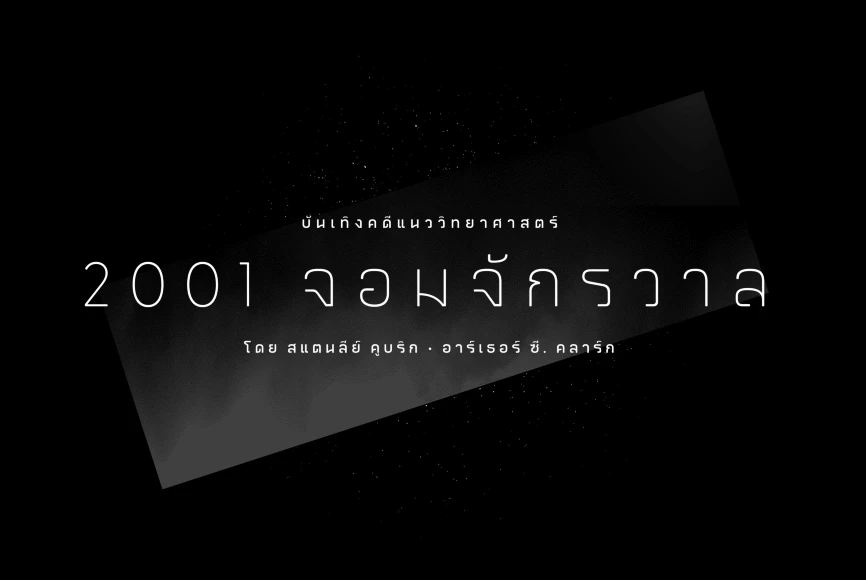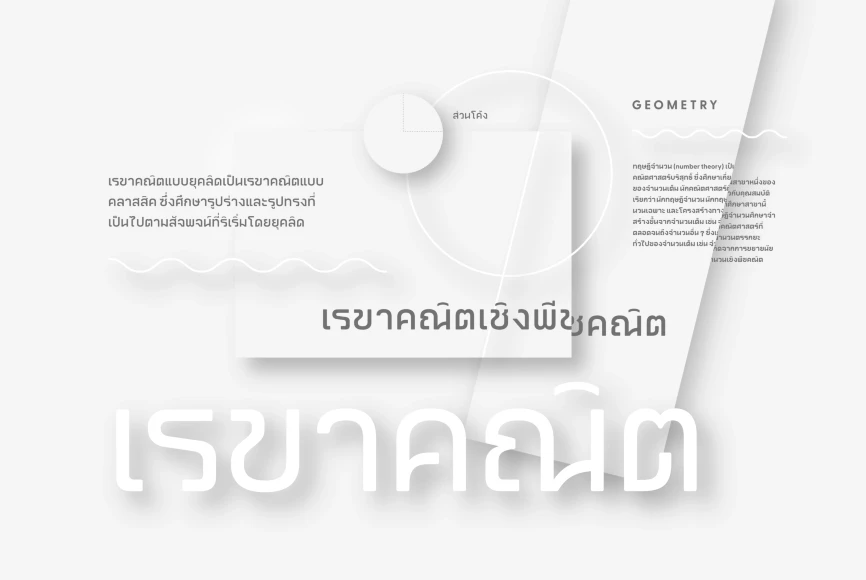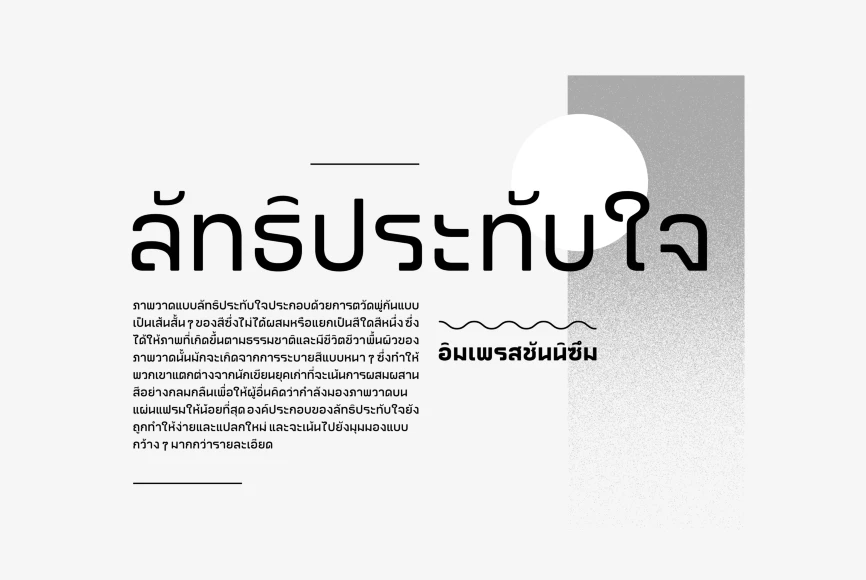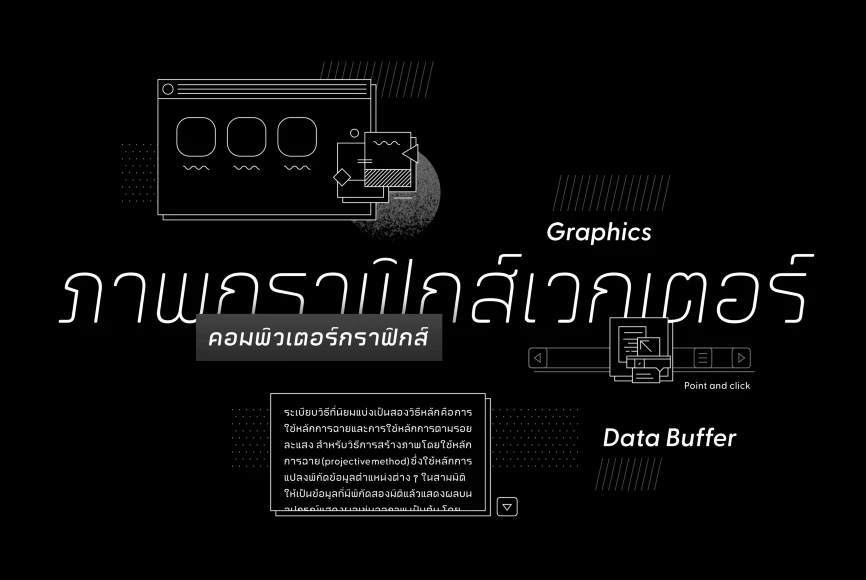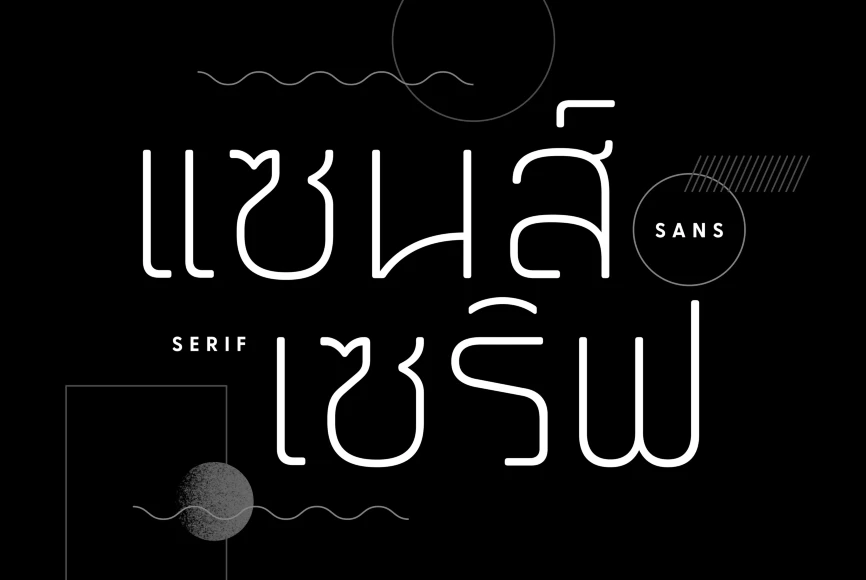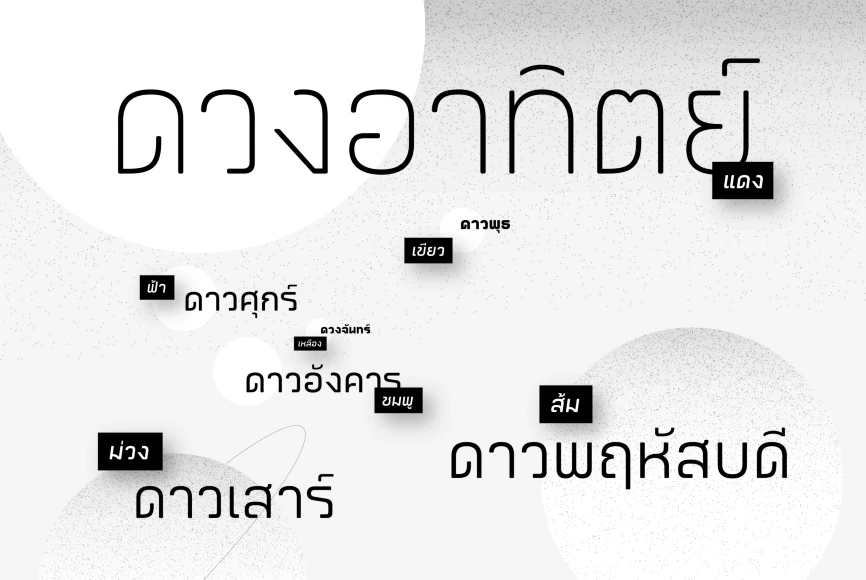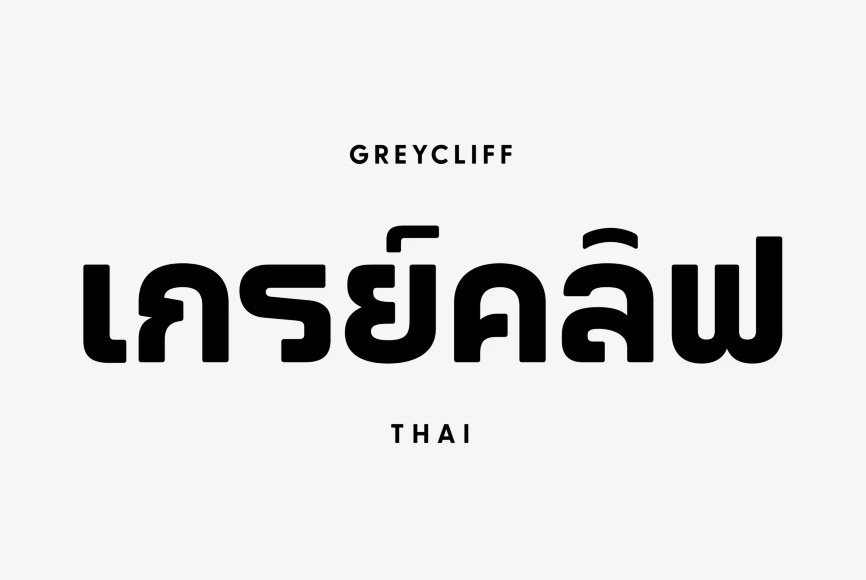
Greycliff Thai
Greycliff Thai CF adapts Greycliff’s popular soft, geometric design to the Thai script. Both Latin and Thai glyphs are included, allowing for cohesive multiple-script applications. Greycliff Thai CF includes nine weights, obliques, and full Thai diacritics. Greycliff Thai CF works as a complete, self-contained type system, with both Latin and Thai scripts included and designed to compliment one another.